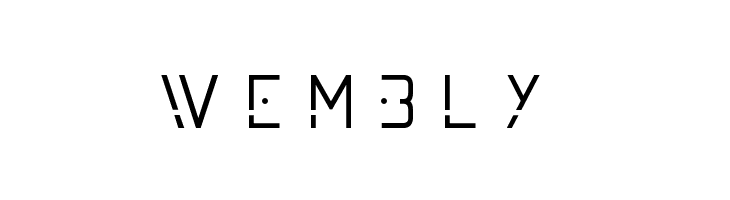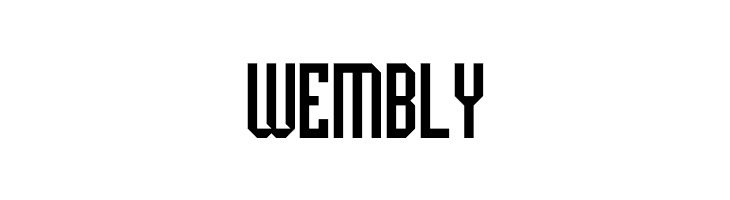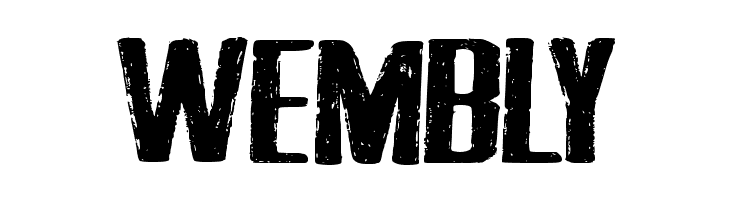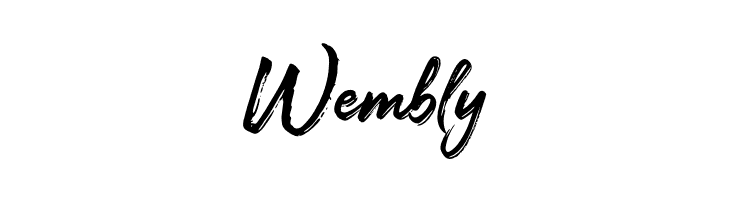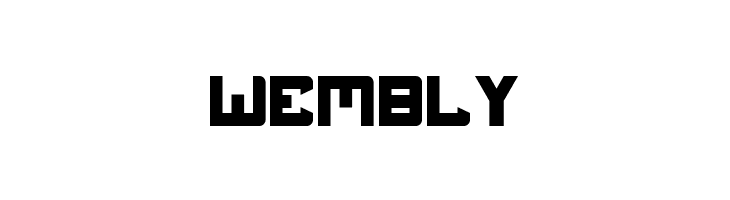
Darklighter Condensed Font
Iconian Fonts - Daniel Zadorozny - www.iconian.com
A bold, condensed, and geometric font with a modern aesthetic.
Darklighter Condensed Italic Font
Iconian Fonts - Daniel Zadorozny - www.iconian.com
A modern, condensed, and italicized font with consistent stroke thickness.
Darklighter Expanded Font
Iconian Fonts - Daniel Zadorozny - www.iconian.com
A bold, expanded, and geometric font with a modern style.
Darklighter Expanded Italic Font
Iconian Fonts - Daniel Zadorozny - www.iconian.com
A bold, italicized font with expanded width and modern style.
Darklighter Italic Font
Iconian Fonts - Daniel Zadorozny - www.iconian.com
Darklighter Leftalic Font
Iconian Fonts - Daniel Zadorozny - www.iconian.com
A bold, modern font with a leftward slant and geometric design.
Darklighter Semi-Italic Font
Iconian Fonts - Daniel Zadorozny - www.iconian.com
A modern, semi-italic font with bold, condensed characters and a sleek, dynamic style.
Darklighter Super-Italic Font
Iconian Fonts - Daniel Zadorozny - www.iconian.com
A bold, italic, and condensed font with a modern, geometric style.
Darkline Font
A bold, brush-style script font with high contrast and dynamic strokes.
darkmatter Font
Limitype
A futuristic, geometric font with unique cut-out sections and angular shapes.
Darkmode Regular Font
A bold, jagged font with a dynamic, brush-like style.
DarkMoonBold Font
InermediaSTUDIO
DarkMoonSerifBook Font
Dieter Steffmann
A modern serif font with elegant, bold characters and distinct serifs.
DarkMusroom Font
Font by Blackletter Studio
A decorative blackletter font with intricate details and a gothic aesthetic.